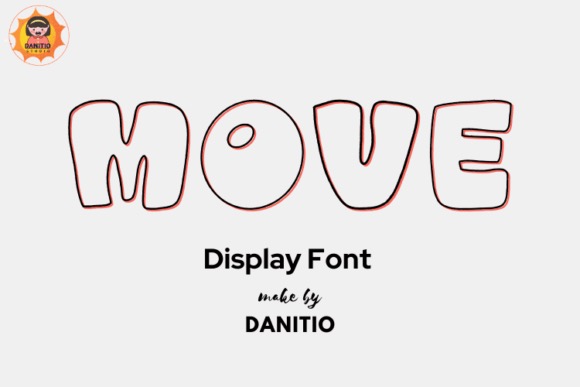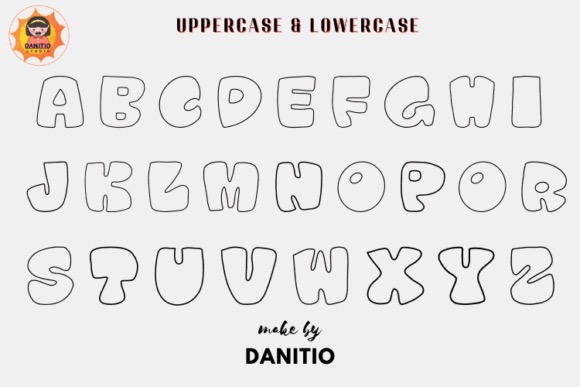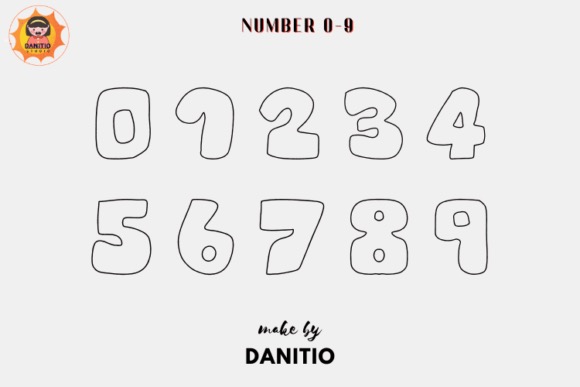
Introducing Move Font by Danita.Kukkai is a simple and lovely display font with timeless charm. Clean lines and rounded edges evoke a sense of simplicity, approachability, and warmth. Perfect for vintage-inspired logo and packaging designs, it adds a touch of sweetness and fun to any project. Its simplicity and readability make it a versatile choice for any creative endeavour.
Move Display Font